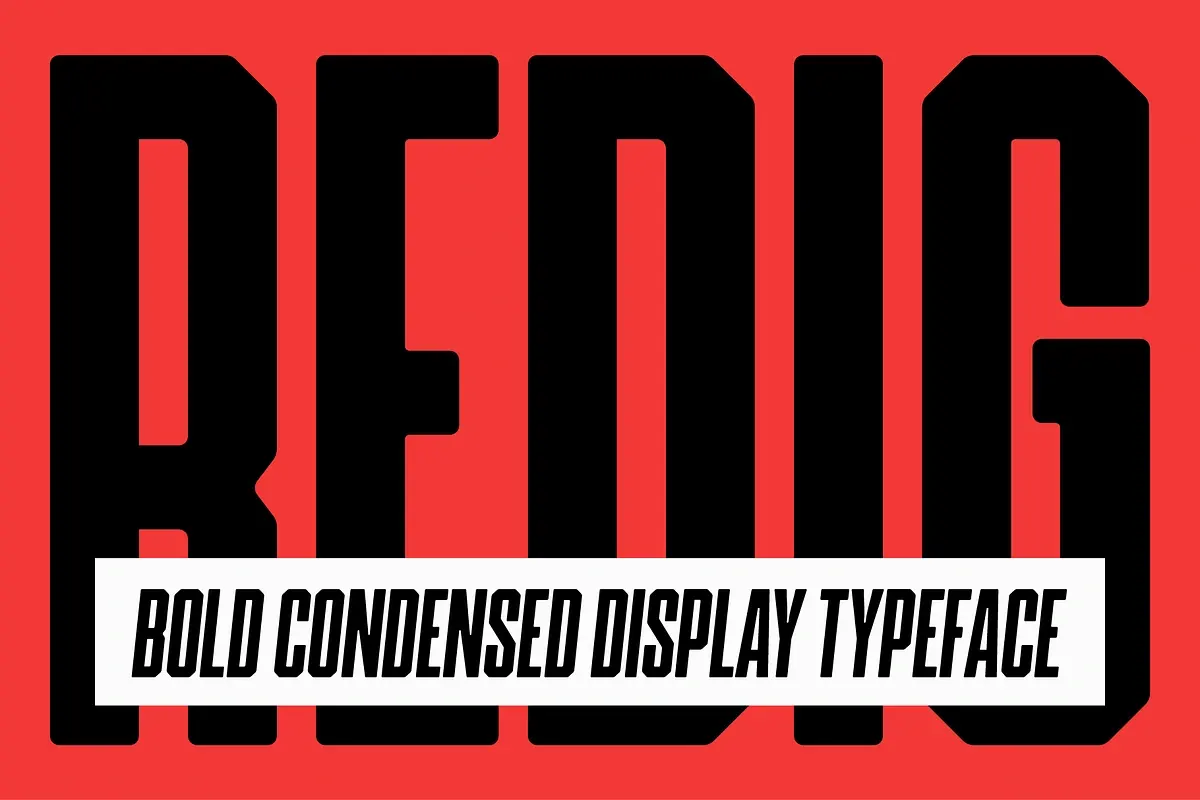
Please note that you must purchase this font for commercial use. You can download Redig – Condensed Bold Sans Font for free, strictly for personal testing purposes only. Redig is a strong, modern sans-serif font with a condensed, bold design. Featuring sharp lines and a sleek, geometric structure, Redig Font Free Download is perfect for headlines, posters, logos, branding, and any design that needs to make a bold statement with limited space.
Its condensed style allows for a clean, impactful look, making it ideal for projects that require high visibility and modern aesthetics. It includes uppercase and lowercase letters, numerals, punctuation, and multilingual support, ensuring versatility across various design projects.
Whether you're working on a contemporary brand identity, creating striking promotional materials, or designing a website, Redig brings boldness, clarity, and a modern edge to your typography.